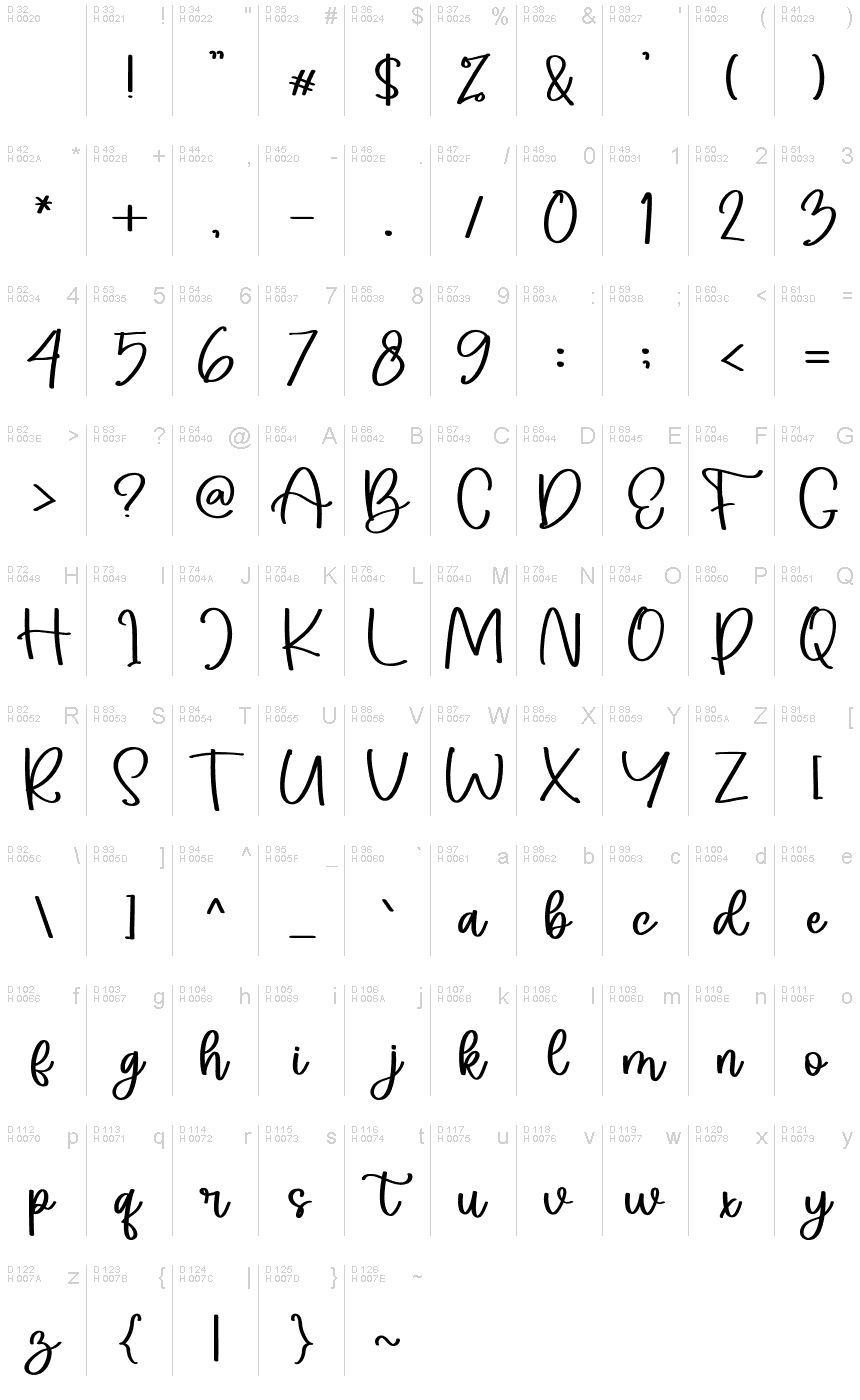
Catalisya
Catalisya, the whimsical handwritten font designed by Erlina Graphic, adds a touch of playfulness to any project. The semi-light weight allows for easy readability while maintaining its delicate charm. With Catalisya, your designs can evoke a sense of personalized warmth and approachability. This font is perfect for invitations, greeting cards, branding materials, and social media graphics. Its versatility also makes it suitable for children's books or products that require a friendly and lighthearted tone. Bring your ideas to life with the Catalisya semi-light font!